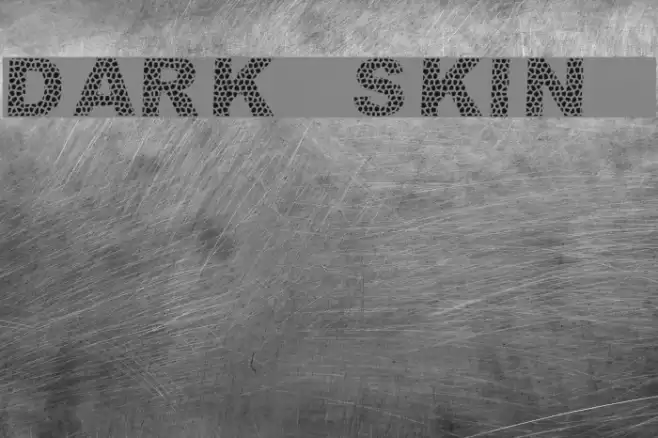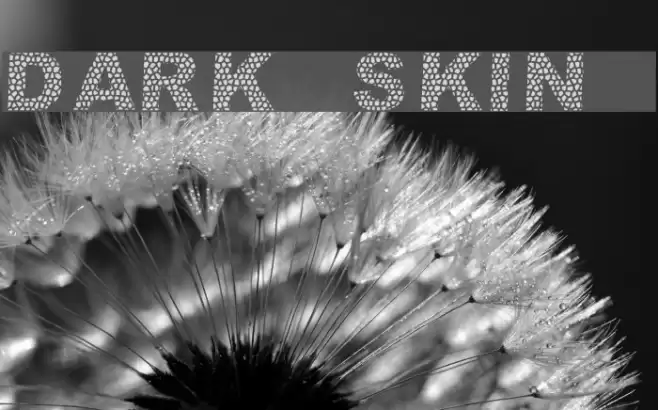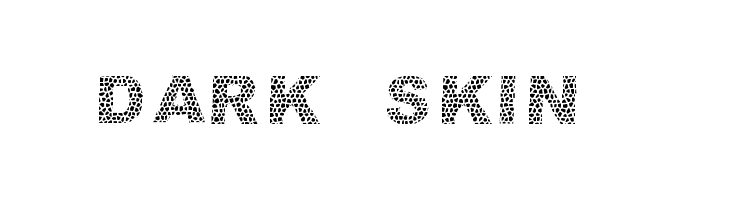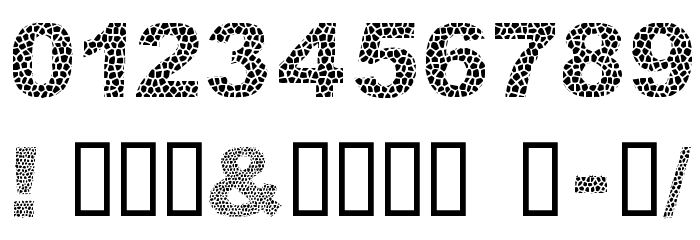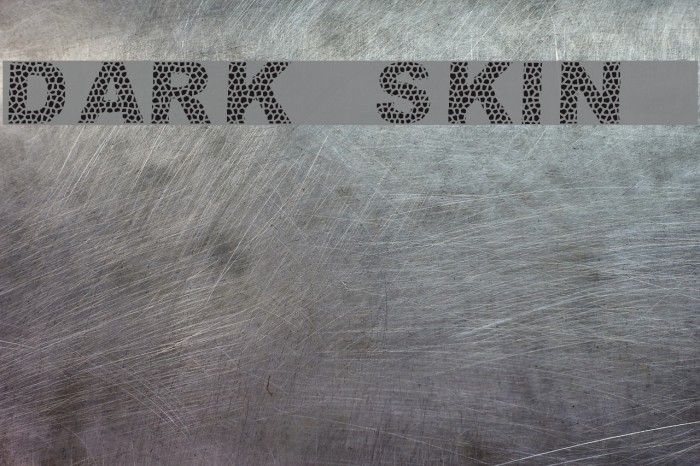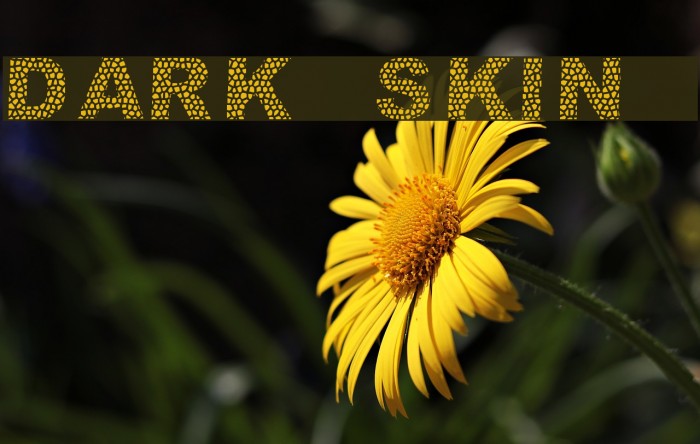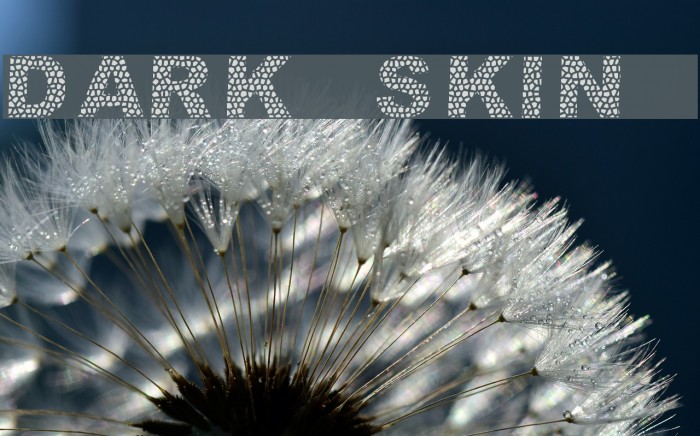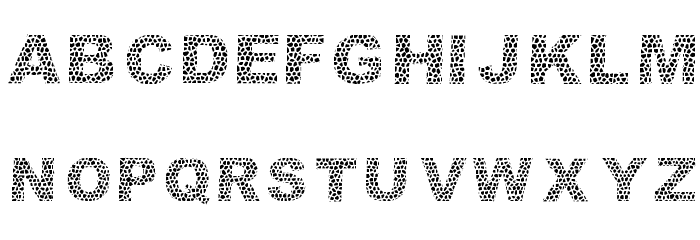
dark skin Font
dark skin Description
This font features a distinctive mosaic pattern within each character, creating a textured and visually engaging appearance. The uppercase and lowercase letters, as well as numbers, are filled with a consistent pattern of irregular shapes that resemble a cobblestone or mosaic design. This unique style gives the font a decorative and artistic flair, making it stand out in any design project. The characters are bold and well-defined, ensuring readability despite the intricate internal pattern. The font is suitable for creative projects where a touch of artistry and uniqueness is desired.
A bold, mosaic-patterned decorative font with a unique artistic style from Decorative fonts.
- Proposed Projects: Ideal for artistic posters, creative branding, unique invitations, and decorative headlines.